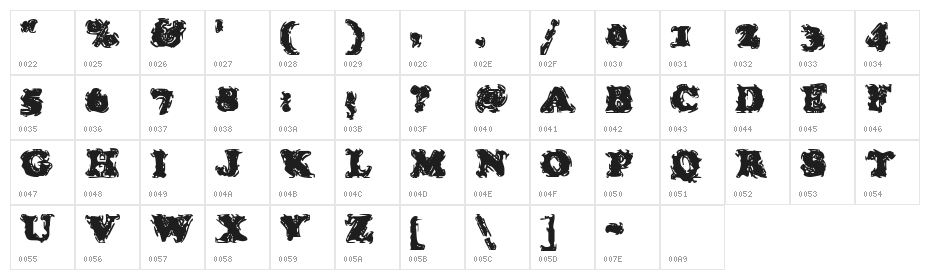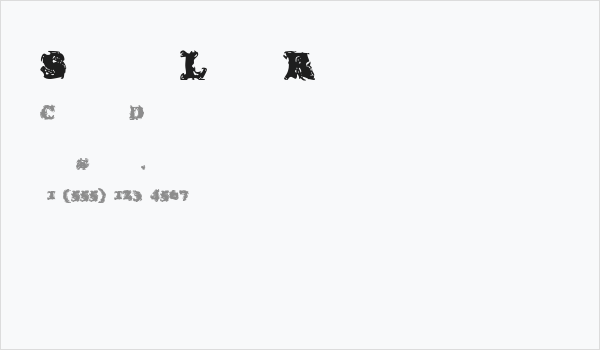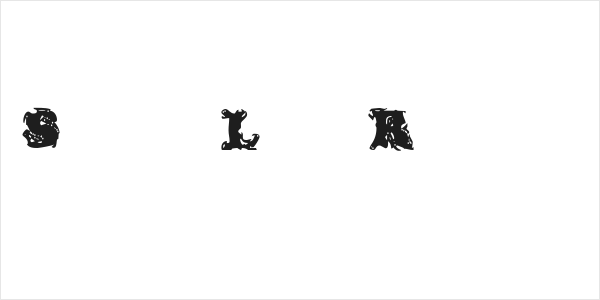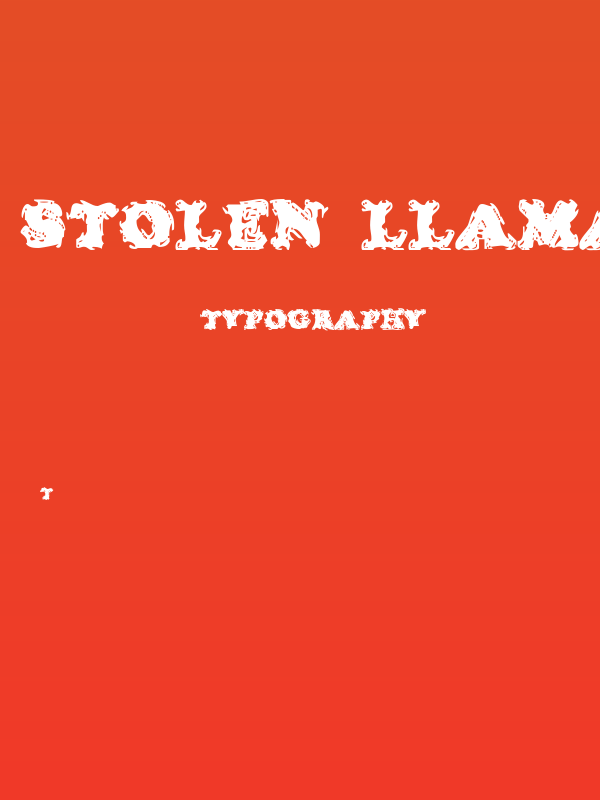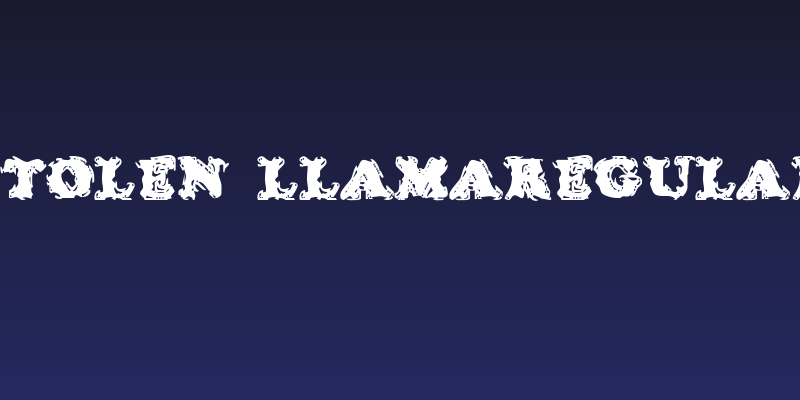
Stolen LlamaRegular Font
Stolen LlamaRegular Description
This font features a highly decorative and distressed style, characterized by irregular shapes and rough edges that give it a unique, chaotic appearance. The letters are bold and heavily stylized, with a playful yet edgy aesthetic. Each character seems to have been crafted with an artistic flair, incorporating elements that resemble splatters or ink blots. This creates a dynamic and visually striking effect, making it stand out in any design. The font's overall look is reminiscent of graffiti or street art, adding an urban and rebellious vibe to its presentation. Despite its complex design, the characters remain legible, making it suitable for creative projects that require a bold statement.
| Proposed Projects | Ideal for album covers, posters, street art-inspired designs, and edgy branding projects. |